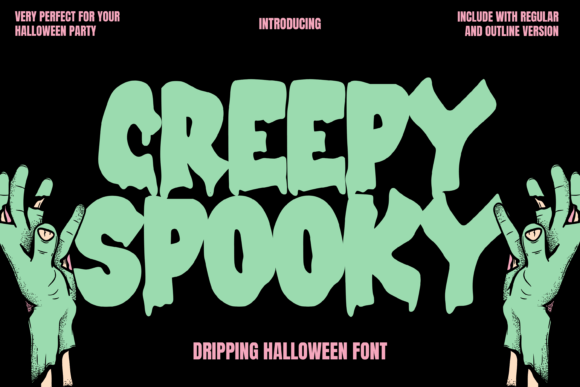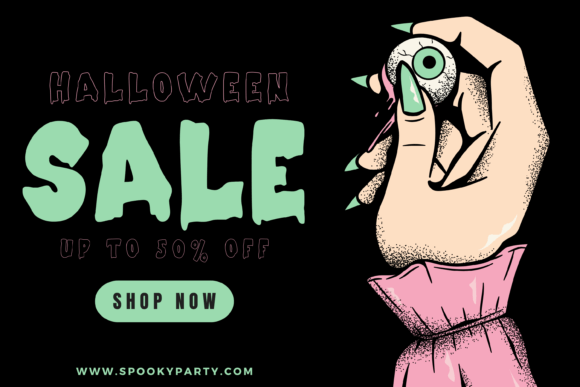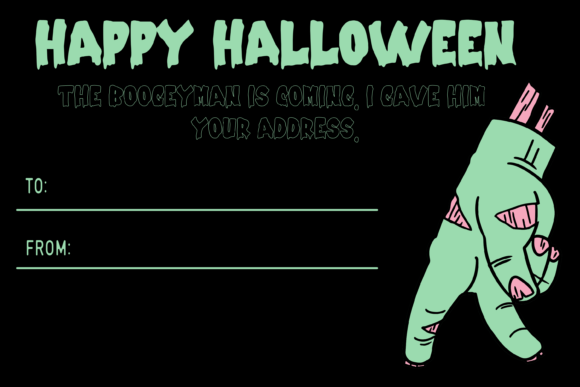
Creepy Spooky Font
About the Creepy Spooky Font
Welcome to the world of Creepy Spooky Font, a typeface that will inspire your next great project. Creepy Spooky is a dripping Halloween font that brings the perfect blend of fright and fun to any Halloween-themed design. The font features characters that appear as if they are melting, with a distinctive dripping effect that resembles oozing slime or blood, adding an instant air of horror to your text. Each letter is crafted with jagged edges and uneven lines, contributing to the unsettling, eerie vibe that is synonymous with the Halloween season. .
Creepy Spooky excels in short, impactful headlines, posters, and Halloween-themed branding where its dramatic effect is showcased. It’s ideal for creating eye-catching titles or short phrases on packaging, invitations, or social media graphics. However, its highly stylized nature makes it unsuitable for body text or UI elements where legibility is paramount. Extended use will severely impact readability.
The font’s core personality is bold and playful, leaning towards the macabre. It’s best suited for brands aiming for a fun, yet slightly spooky, image. Think Halloween-themed events, horror-comedy films, or products with a gothic flair.
To balance Creepy Spooky’s dramatic forms, pair it with a clean sans-serif like Open Sans or a classic serif like Garamond for contrast. For a more playful feel, consider pairing it with a rounded, friendly sans-serif. Avoid pairing it with other highly stylized fonts, as this would create visual overload.